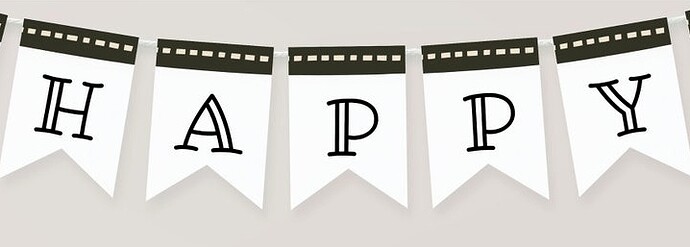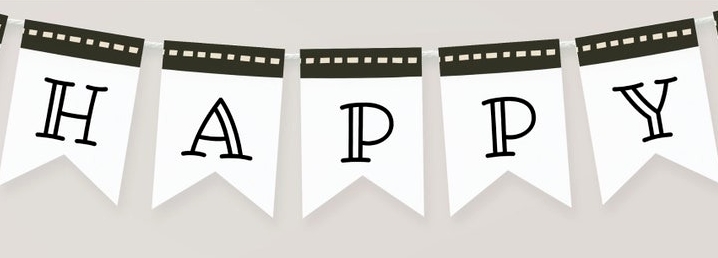
This double lined font looks interesting, can anyone tell me its name ?
It’s not available in the zazzle fonts and it’s part of the Ribeye family - Ribeye Marrow